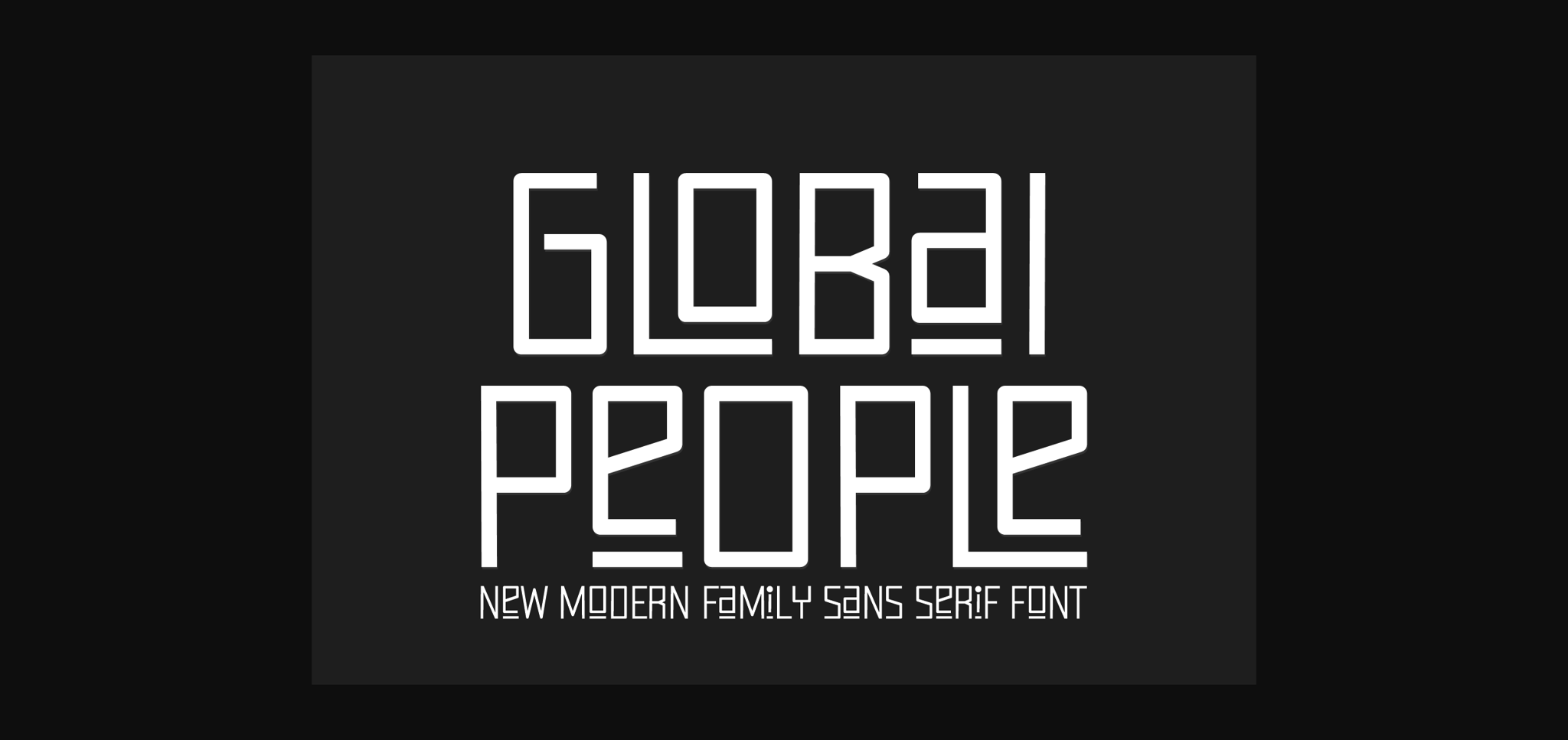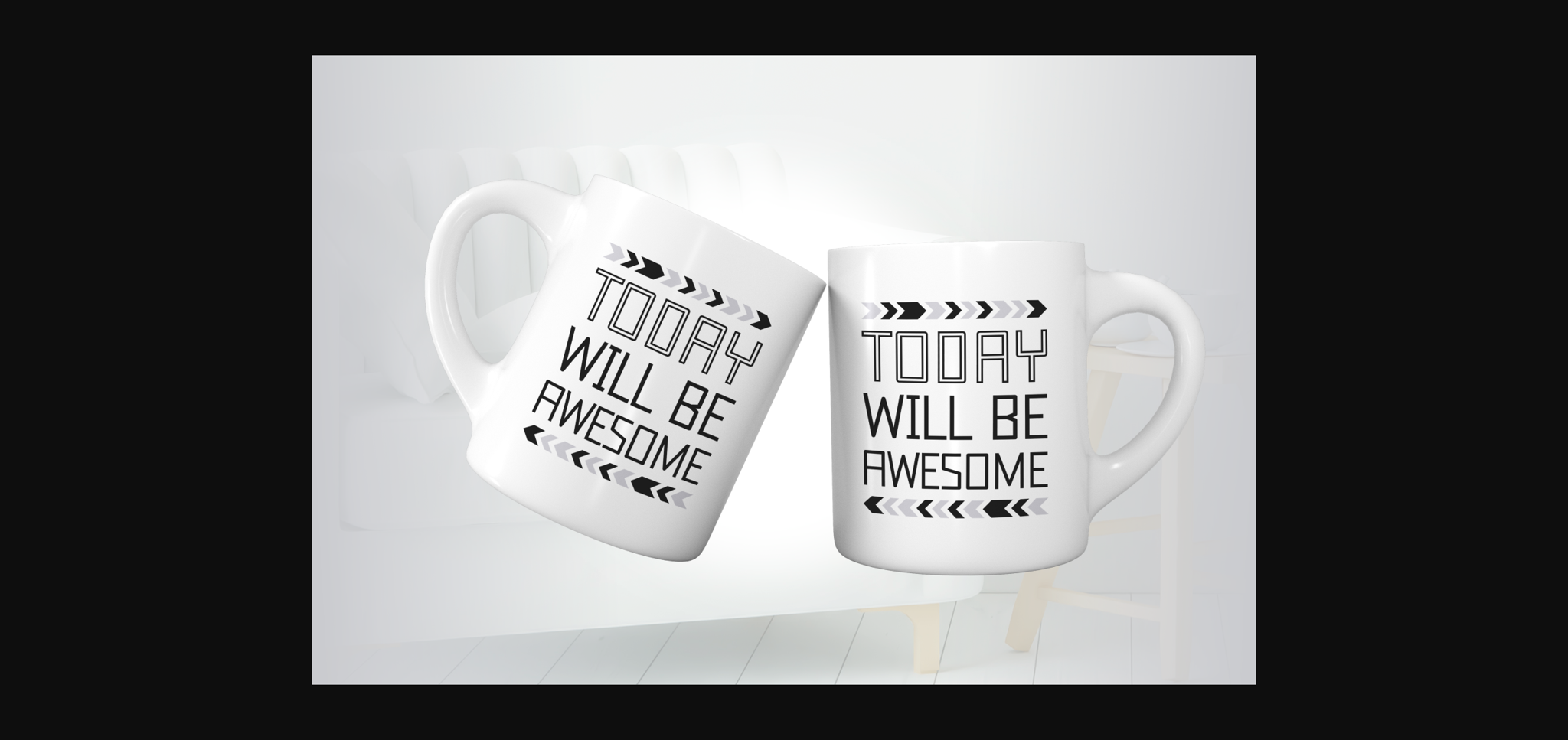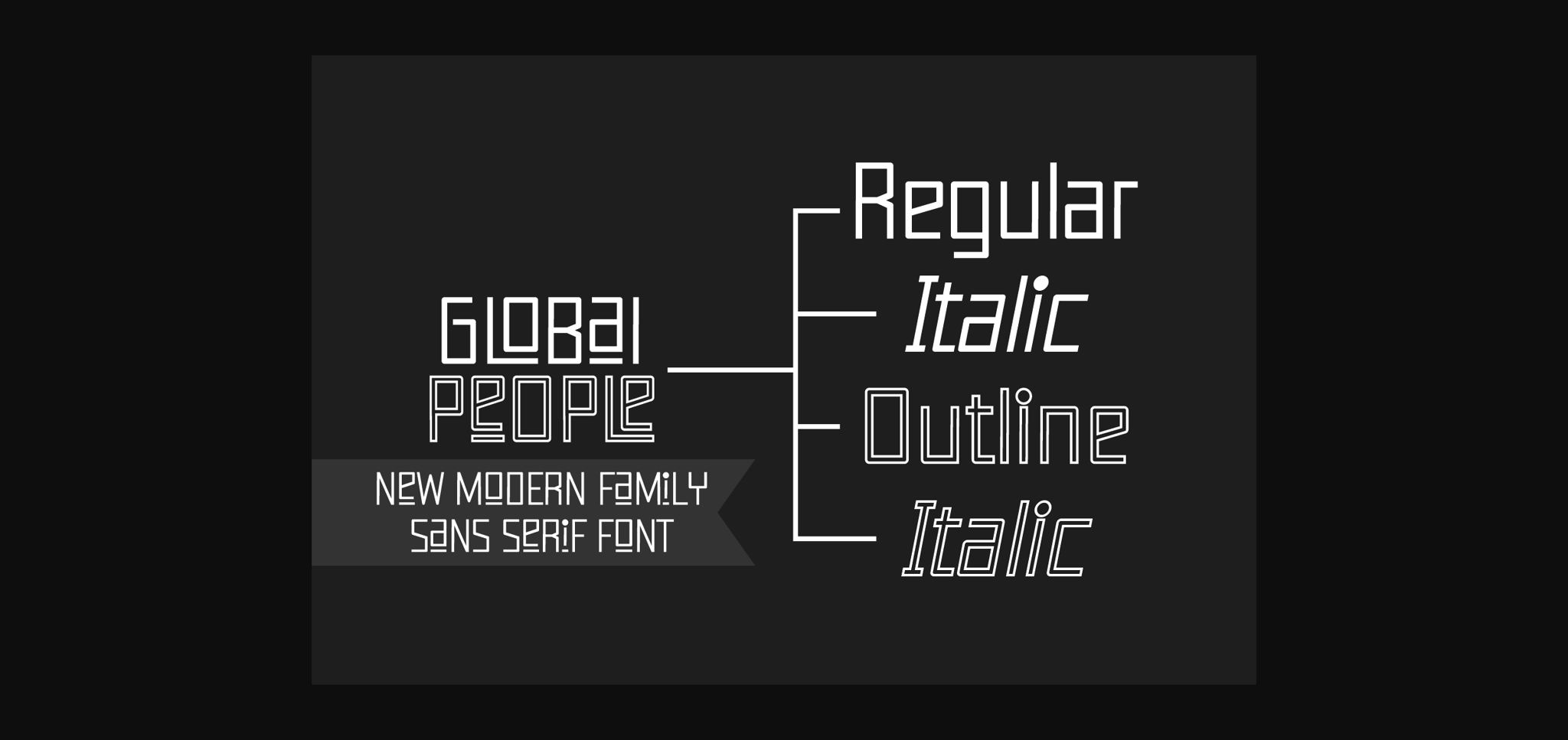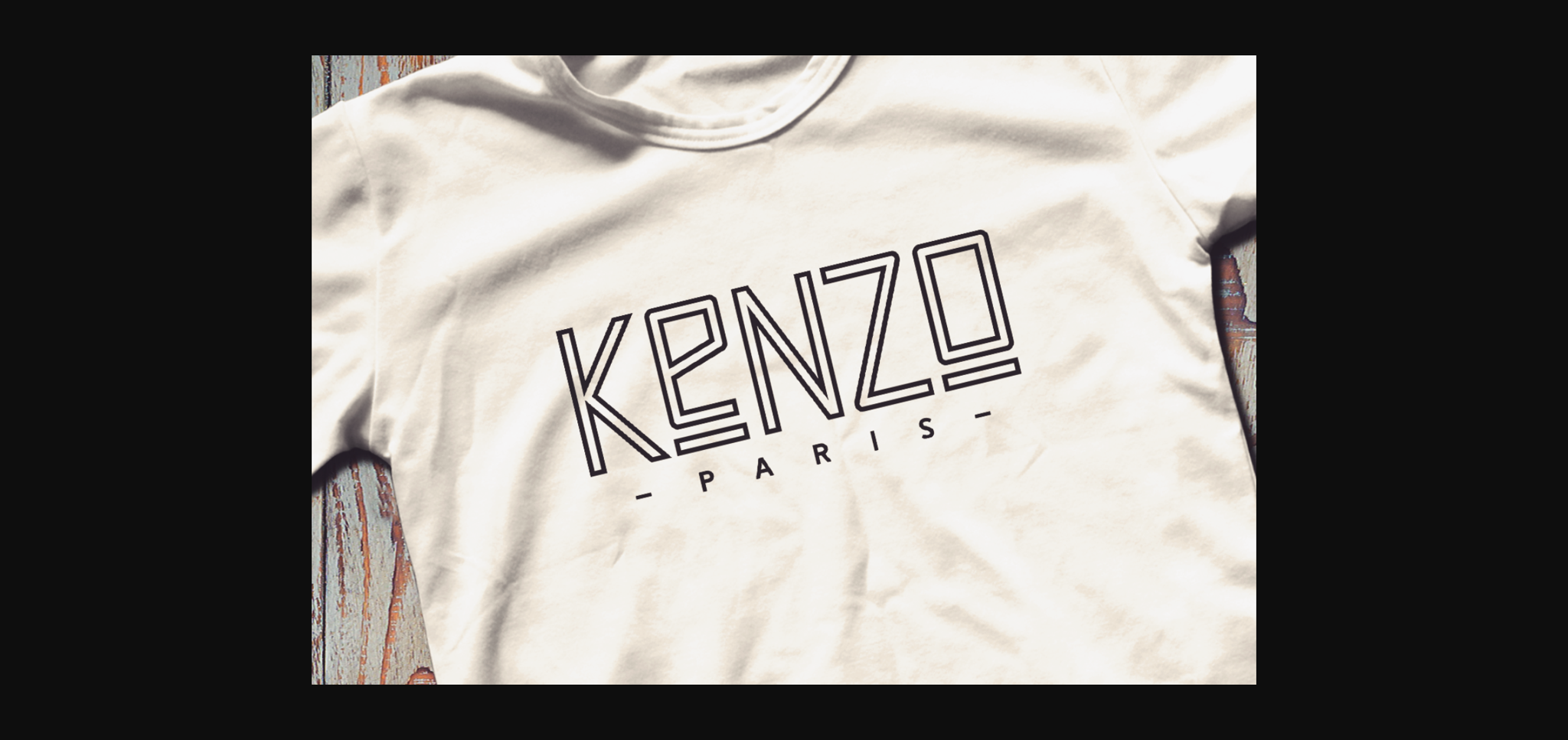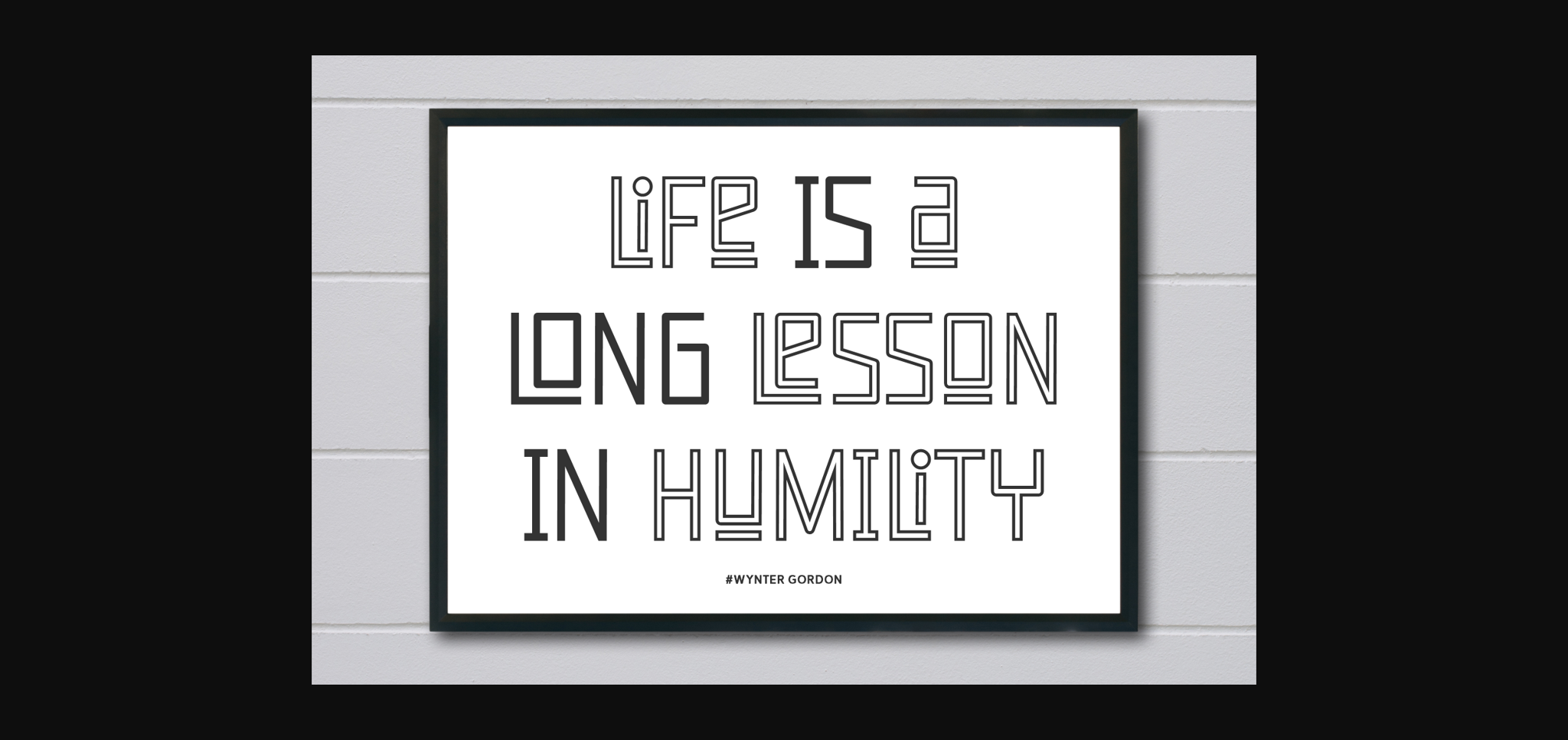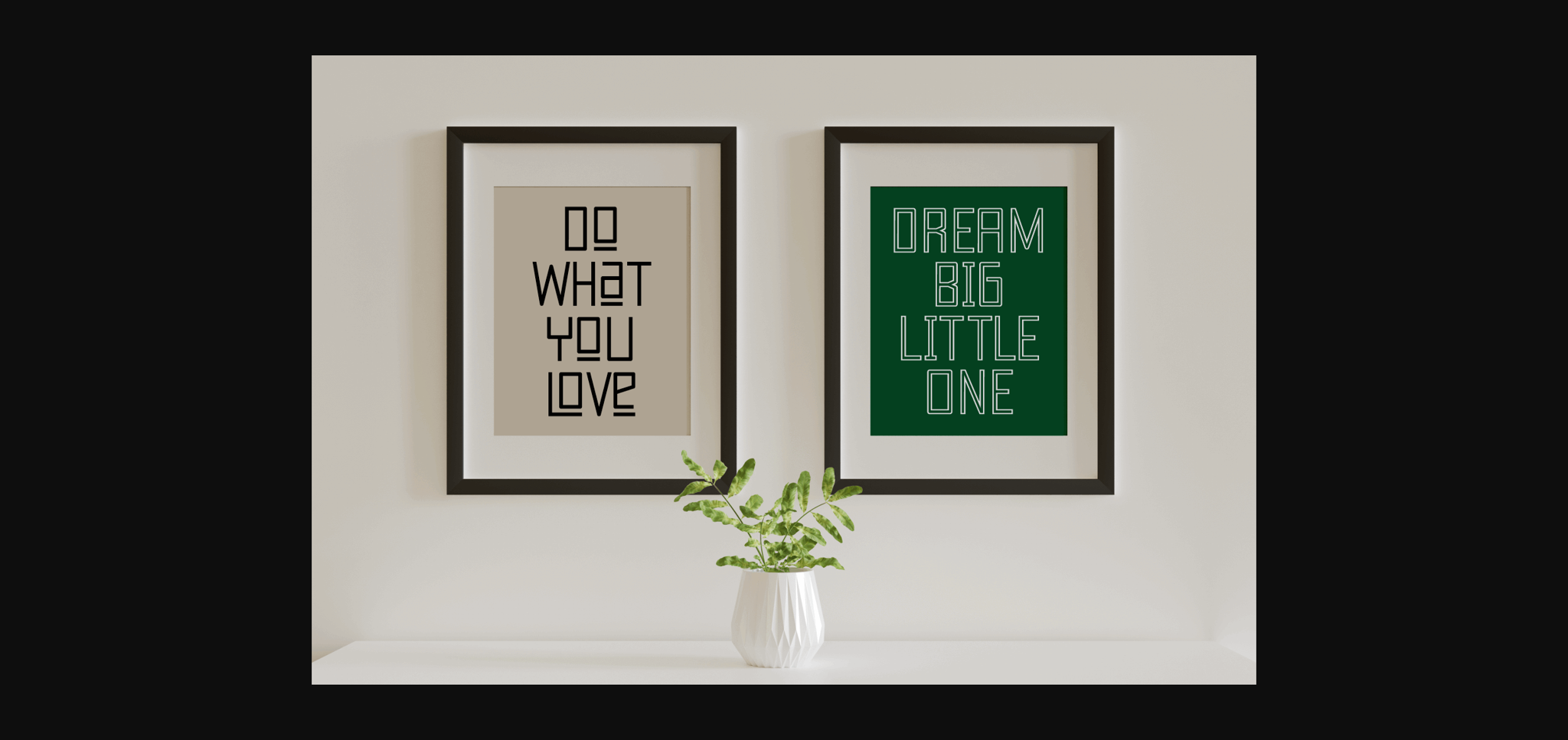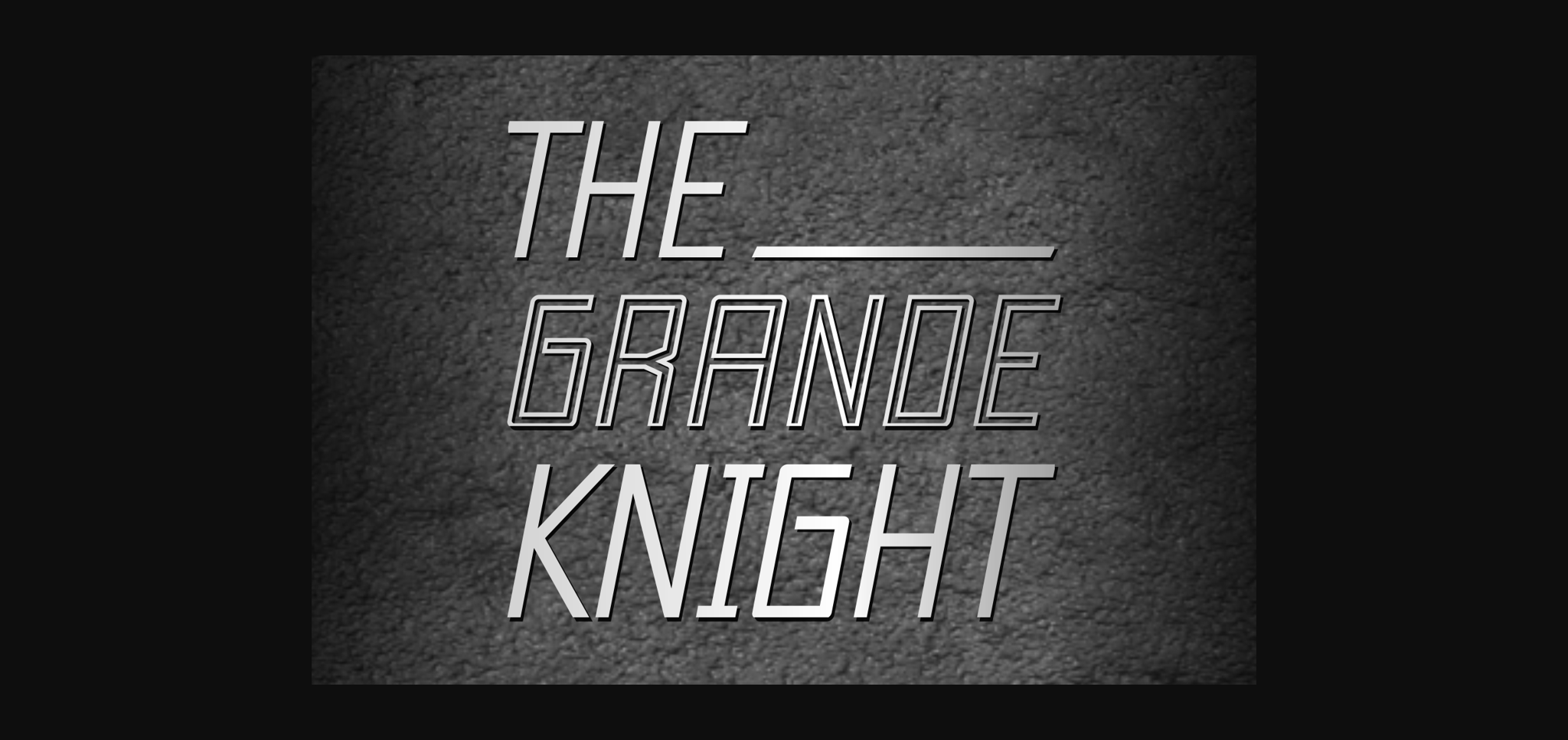
Global People Font
About Global People Font
Global People is a funky and distinctive sans-serif font that exudes personality and originality. With unconventional letter shapes and playful lines, it adds a fun and dynamic touch to any design. Whether used in headlines, logos, or branding materials, Global People captures attention with its quirky yet stylish appearance.